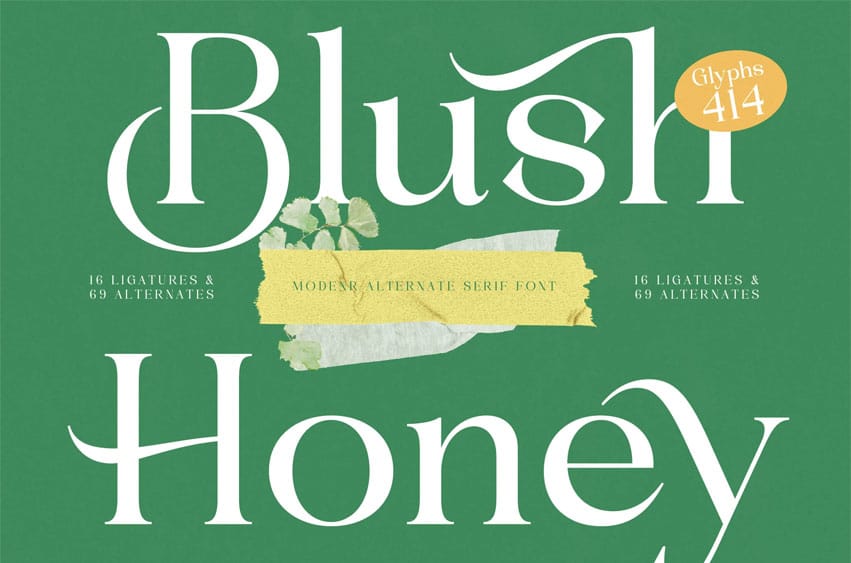
Blush Honey Font is a modern alternate serif font that blends soft elegance with a refined contemporary touch. Featuring 16 ligatures and 69 alternates across 414 total glyphs, it offers flexibility and artistic expression for any design.
Perfect for branding, editorials, packaging, and invitations, Blush Honey’s graceful details and balanced structure bring a sense of sophistication and timeless beauty to your creative projects.